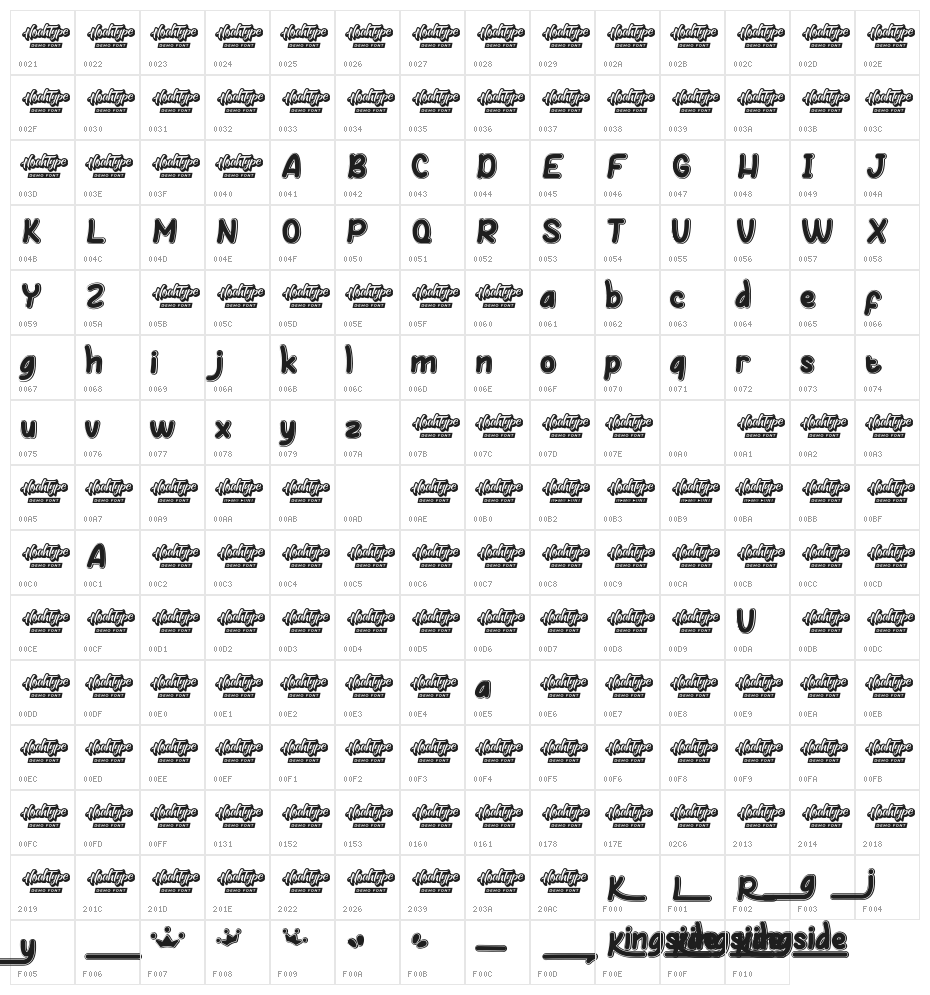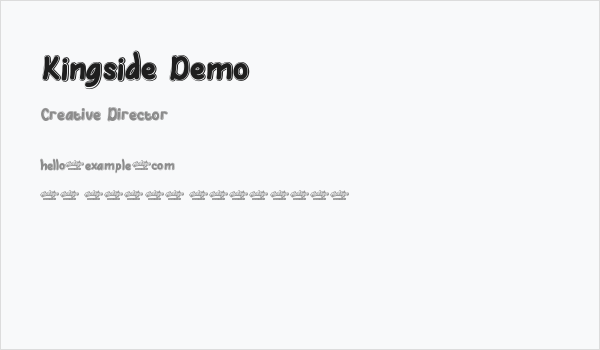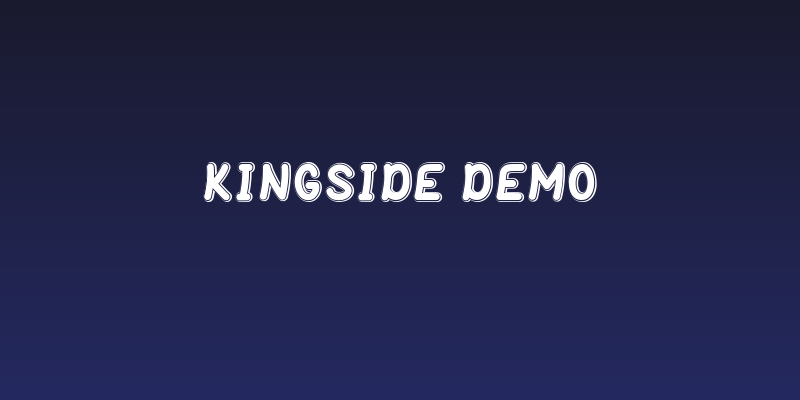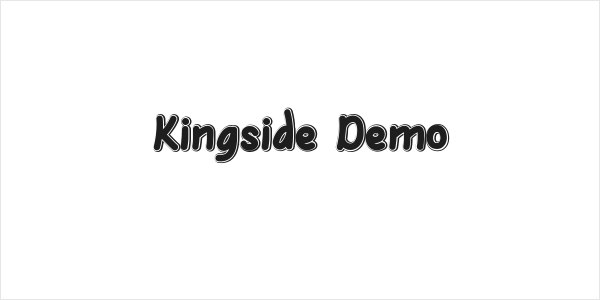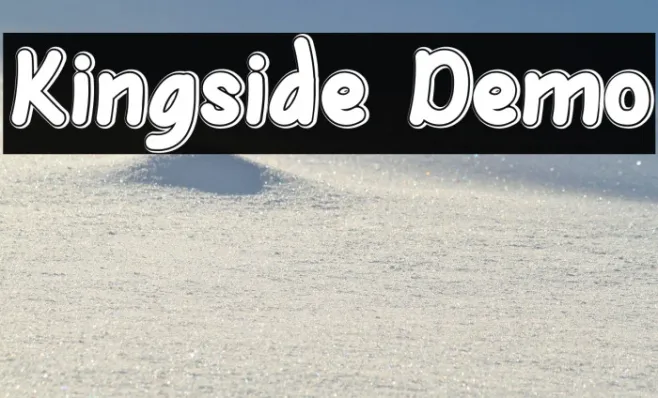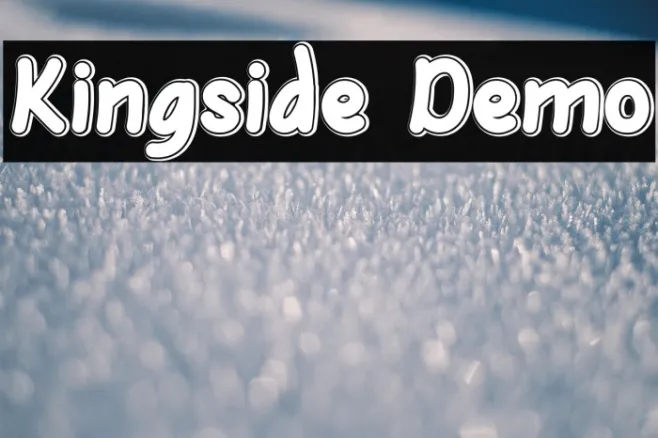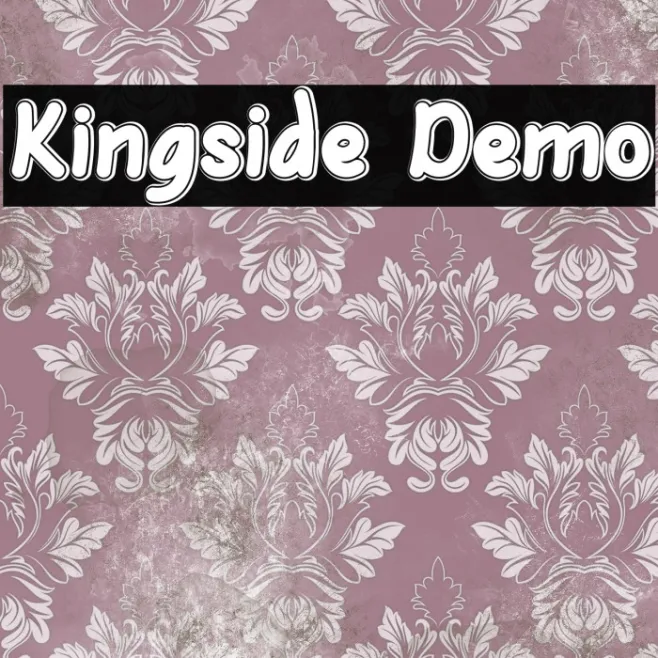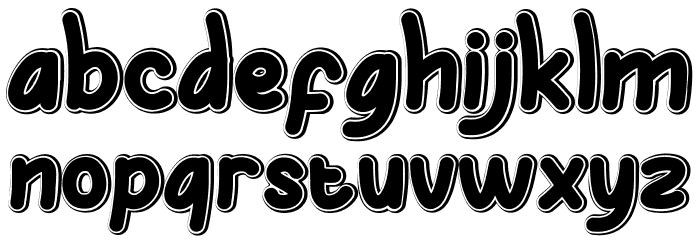
Kingside Demo Font
Kingside Demo Description
This font features a bold, playful design with thick, rounded strokes and a distinct outline that gives it a three-dimensional appearance. The characters are slightly condensed, enhancing its boldness and making it stand out. The uppercase and lowercase letters maintain a consistent style, with smooth curves and a friendly, approachable look. The numbers and special characters follow the same design principles, ensuring uniformity across all glyphs. This font is ideal for projects that require a fun and engaging aesthetic, such as children's books, playful branding, or eye-catching headlines.
| Overall Style | Playful, Modern |
| Proposed Projects | Children's books, playful branding, eye-catching headlines, posters, and social media graphics. |